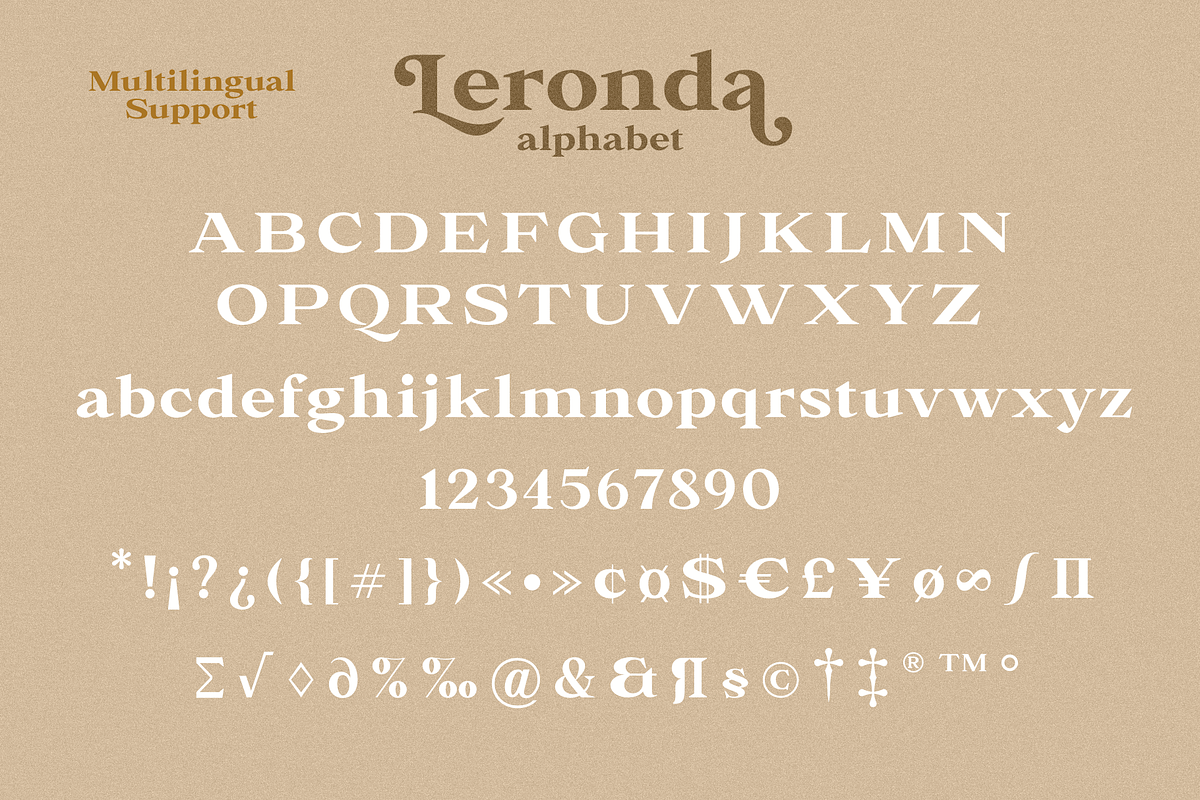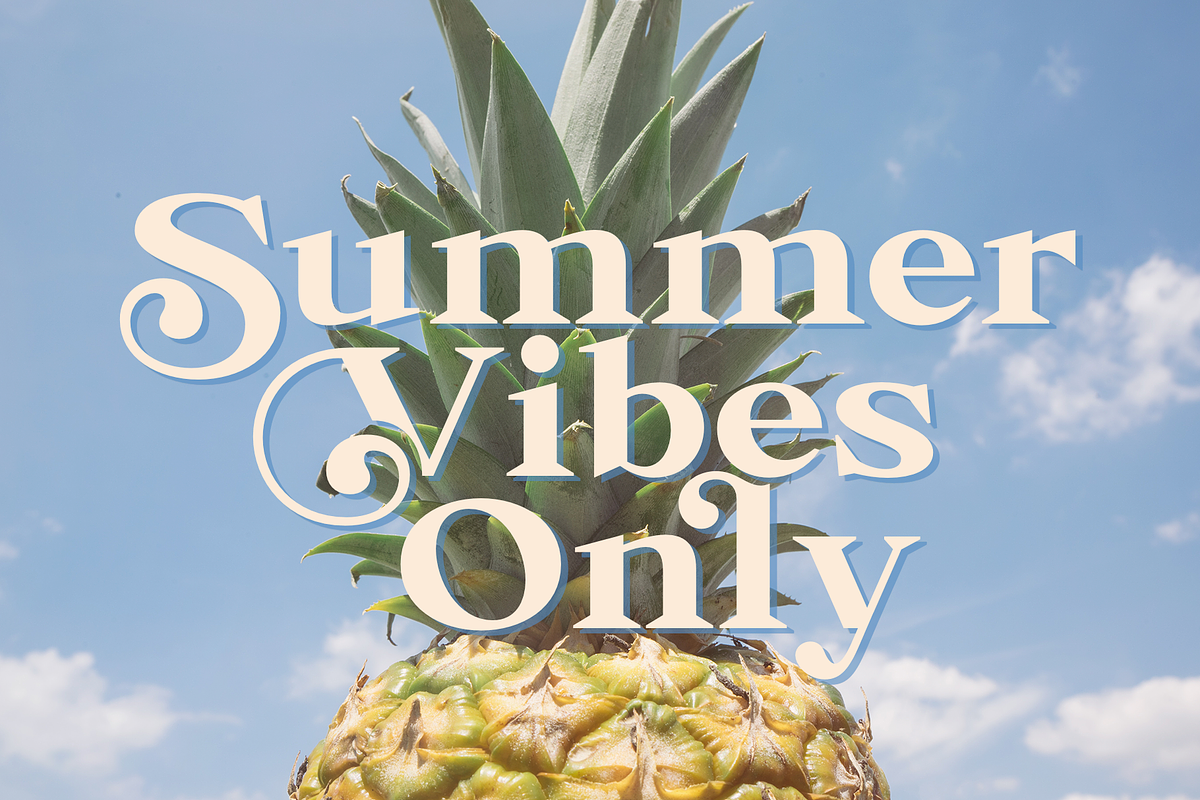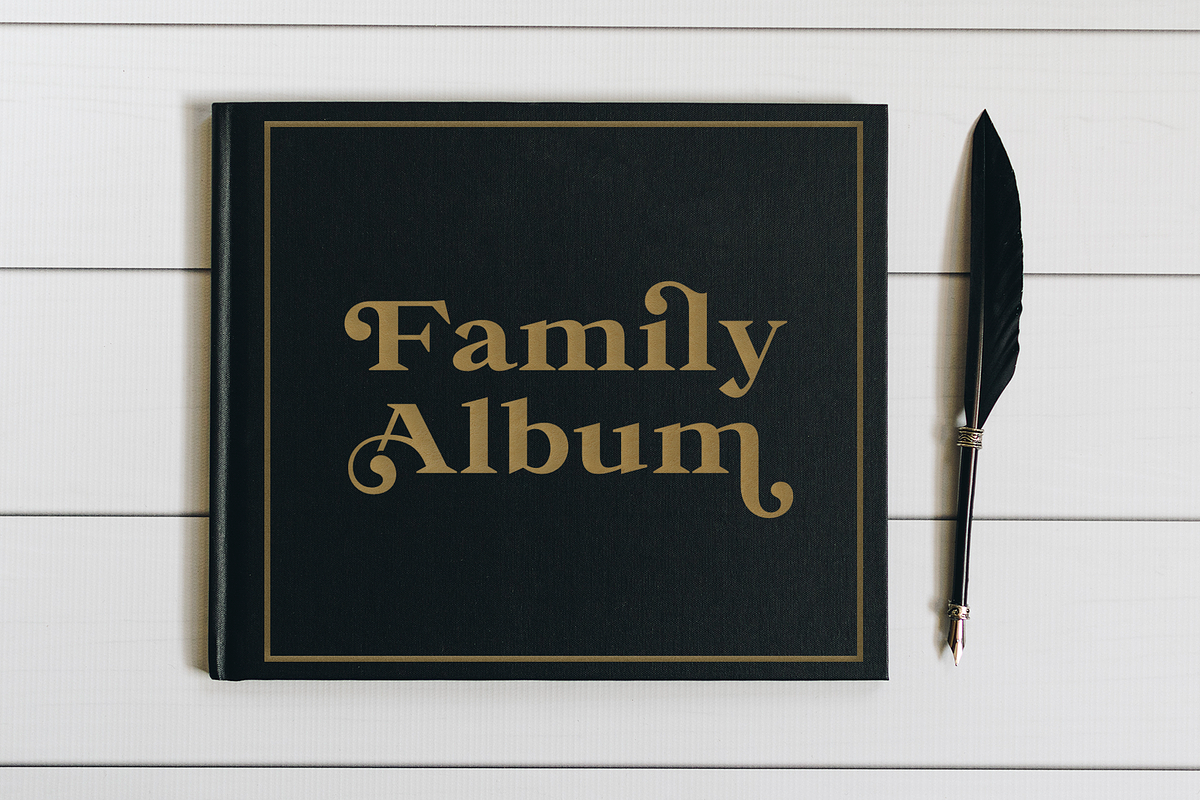
Leronda
Leronda is an awesome font that can look austere and classic or vintage and softer and more pliable thanks to alternatives. They will add charisma, diversity to your project and emphasize your brave decision. Also lowercase ligatures are included in this font, use them and it will also show your personality. This font has a heavy weight and is perfect for creating logos, headlines, advertising, branding, book covers and magazines, and much more. Use it in headings and text to highlight important information.
This font is easy to use, has OpenType features.
Following international symbols support: ÀÁÂÃÄÅĄÇĆÈÉÊËĘÌÍÎÏÐÑŃŁÒÓÔÕÖØÙÚÛÜŚŠŸÝŹŻŽßàáâãäåçèéêëìíîïðñòóôõöøùúûüýÿąćęłńśšźżž
Full alphabet with Uppercase and Lowercase A-z
Numbers, fractions
Punctuation and symbols
Alternates for Uppercase
Alternates for Lowercase
Ligatures for Lowercase